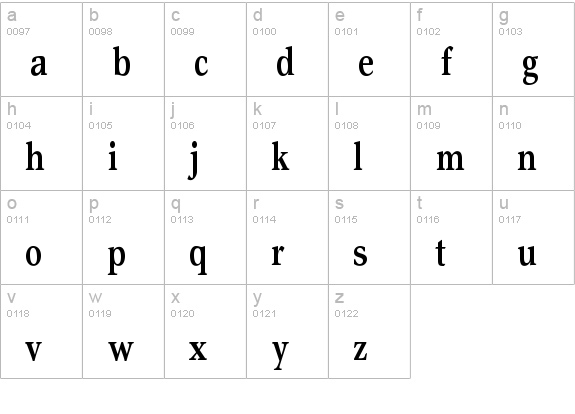
Garth Graphic Bold Condensed is a strong, high-contrast, condensed-width variant in the Garth typeface family \xE2\x80\x94 well suited to headlines, attention-grabbing titles, and strong calls-to-action.
Garth Graphic Bold Condensed font is a striking and impactful typeface that demands attention with its bold and condensed design. Perfect for creating eye-catching headlines and titles, this font exudes a sense of modernity and sophistication. The thick, strong strokes of the letters give a sense of power and strength, making it an ideal choice for projects that require a bold statement. Best of all, this versatile font is available for free download at FontsMarket.com, allowing designers and creatives to easily access and use it in their projects without any cost. Whether you're designing a poster, logo, or website, Garth Graphic Bold Condensed font is sure to make a bold impact and elevate your design to the next level. Don't miss out on this fantastic opportunity to enhance your creative projects with this exceptional typeface.